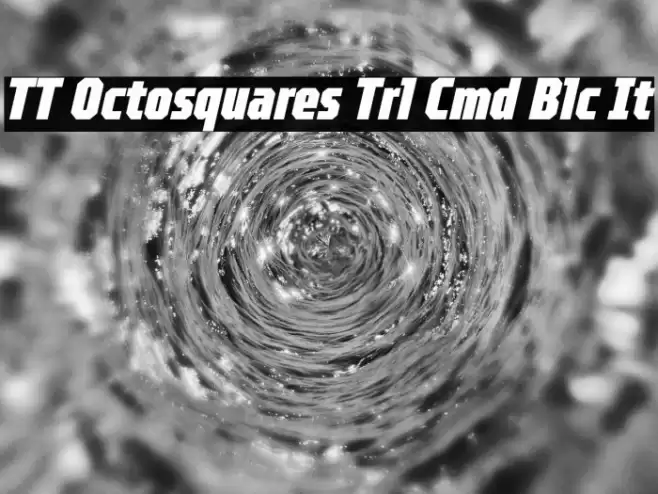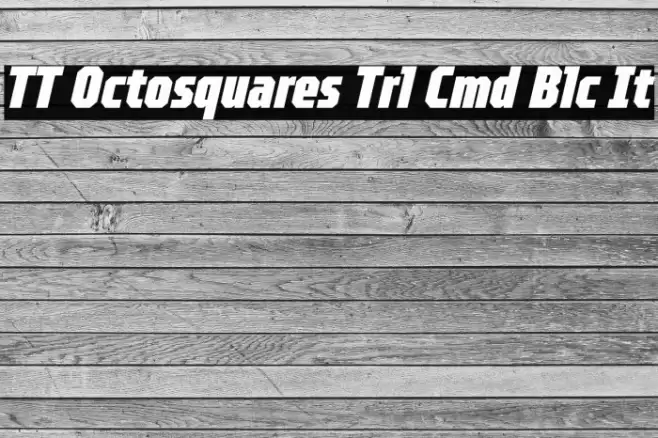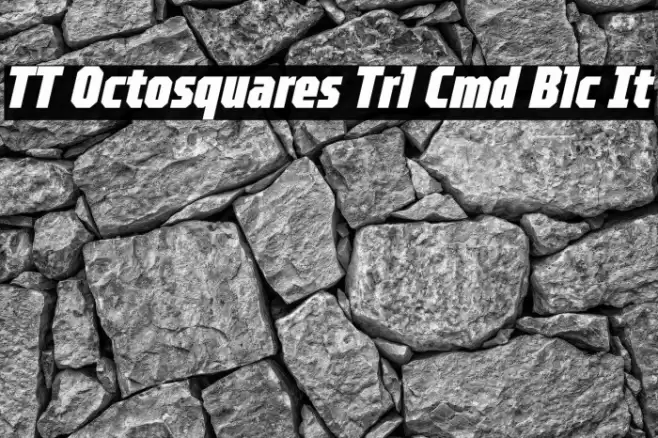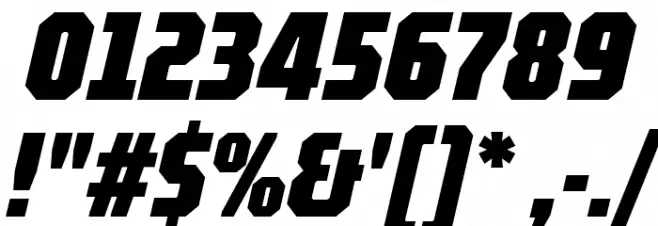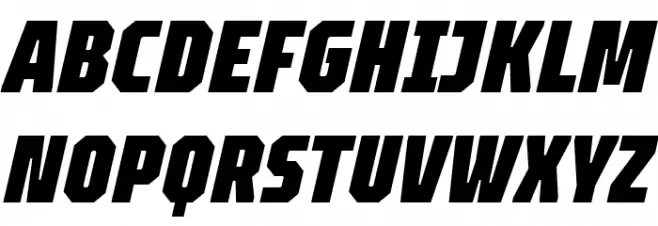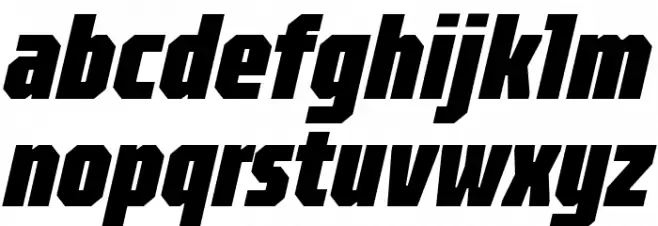
TT Octosquares Trl Cmd Blc It Font
TT Octosquares Trl Cmd Blc It Description
This font features a bold and commanding presence with its geometric and angular design. The characters are sharply defined, with a distinct block-like appearance that conveys strength and modernity. The uppercase and lowercase letters maintain a consistent style, emphasizing uniformity and cohesion. The numerals and special characters are crafted with the same attention to detail, ensuring a seamless visual experience. The italic slant adds a dynamic touch, enhancing the font's versatility for various design applications.
A bold, geometric font with an angular, modern design and italic slant from Uncategorized fonts.
- Proposed Projects: Ideal for branding, sports team logos, posters, and any project requiring a strong, modern aesthetic.
- Use Case: Logos, Headlines, Posters